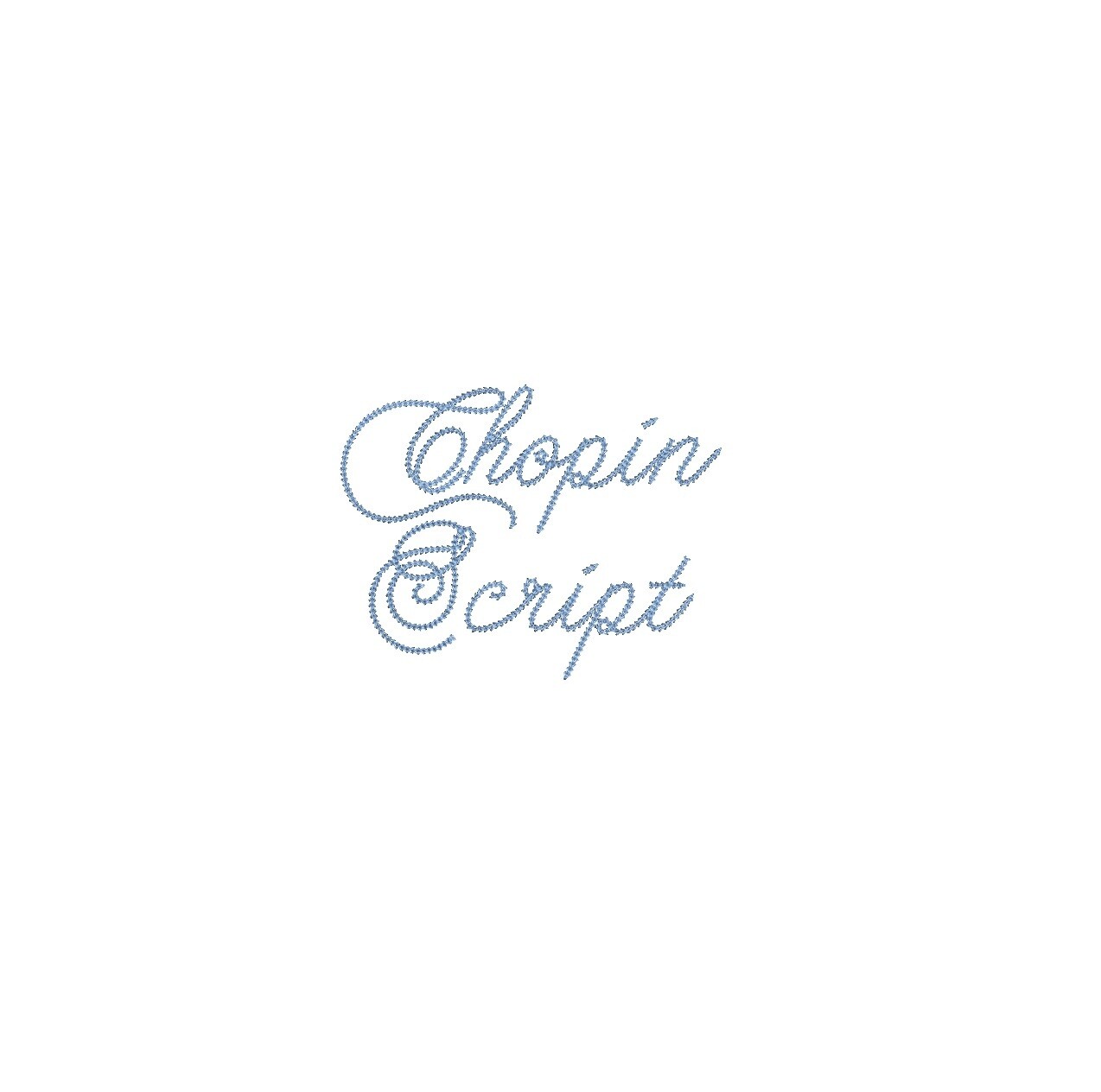
Welcome to the world of creativity with Chopin Chain Stitch ESA font! Crafted to perfection for Wilcom Studio e4.5.6 and Hatch 3 versions and above, this font revolutionizes embroidery design. Unleash your imagination with its intricate chain stitch pattern and seamless compatibility with leading software. Achieve stunning, professional designs effortlessly. Elevate your projects with the timeless appeal of Chopin Chain Stitch ESA Font, perfect for fashion, home decor, and personalized gifts. Seamlessly integrate and optimize your embroidery endeavors. Embrace the future of embroidery design today and elevate your craftsmanship to new heights with Chopin Chain Stitch ESA font.